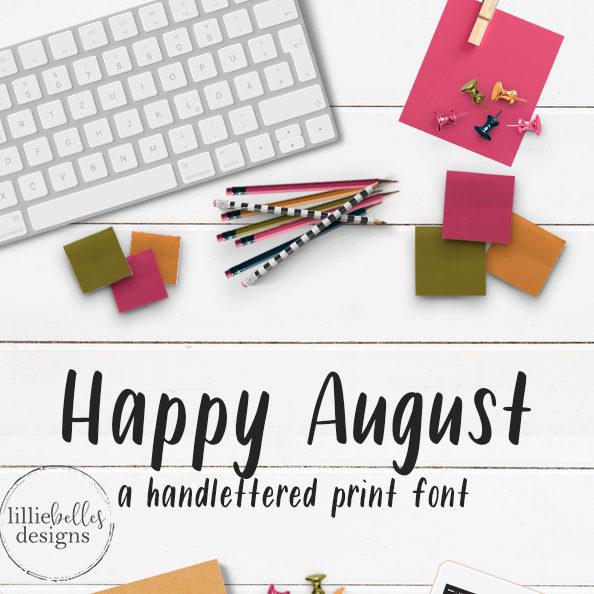
Happy August font
Happy August - A hand lettered font with extras!
Happy August is another fun font with super cute doodles built into the font. You can access the doodles in the glyphs panel of your software.